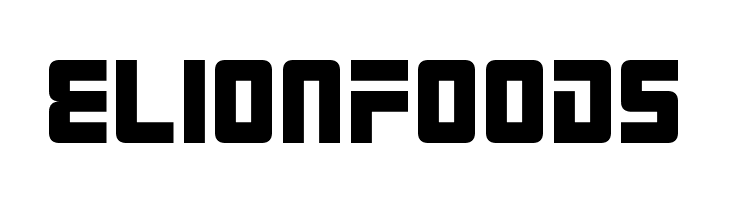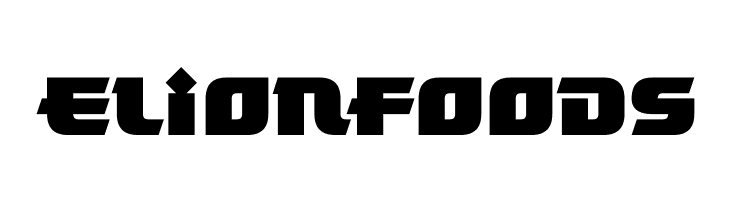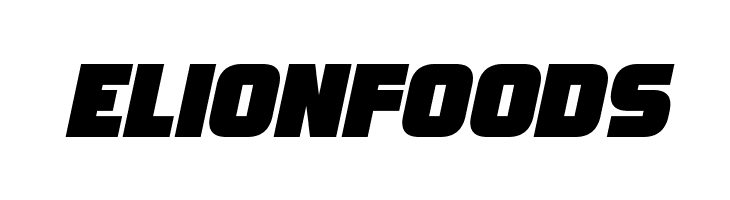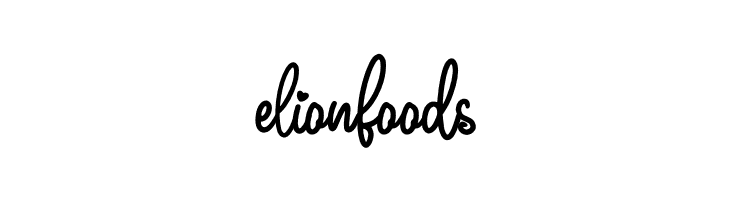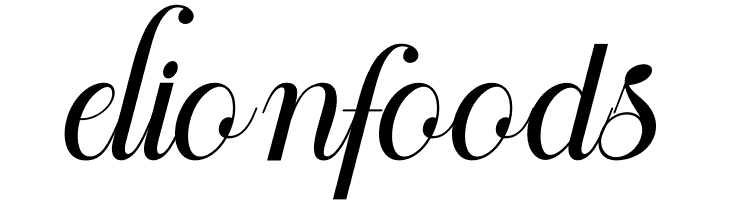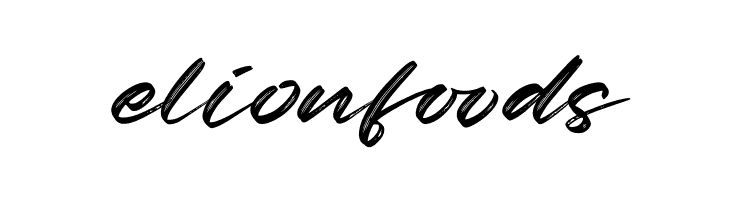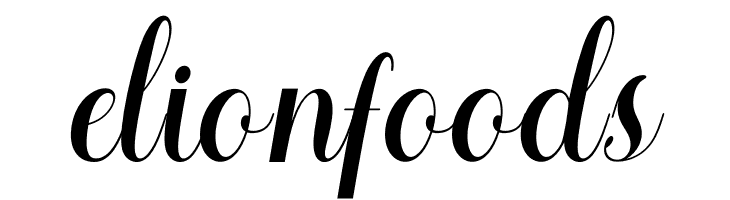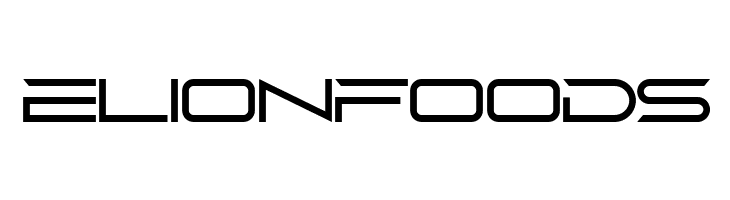
A bold, geometric font with a futuristic and modern style.
A bold, geometric font with a futuristic and angular design.
A bold, angular font with a futuristic and geometric style.
A bold, angular, and italicized font with a futuristic style.
A bold, playful font with exaggerated, uneven letterforms.
A bold, italicized font with a modern, dynamic style.
A bold, geometric font with a modern, futuristic style.
A bold, geometric font with sharp, angular shapes for a futuristic look.
A bold, angular font with high contrast and geometric design.
A bold, italicized font with a futuristic and dynamic style.
A bold, geometric font with thick strokes and a modern, impactful design.
A bold, italic font with a dynamic and modern style.
A bold, angular, and italic font with a futuristic and dynamic style.
A bold, italicized font with sharp angles and a futuristic design.
A bold, angular font with a modern, aggressive style.
A bold, italicized font with a futuristic and robotic design.
A bold, futuristic font with geometric and angular design elements.
A whimsical and elegant handwritten font with flowing, interconnected letterforms.
An elegant script font with fluid, sweeping strokes and graceful curves.
A bold, expressive handwritten font with dynamic cursive letterforms.
A bold, geometric font with an industrial, vintage feel.
A playful, whimsical script font with decorative swirls and a handwritten feel.
A bold, flowing script font with a playful, artistic style.
A flowing, elegant script font with a handwritten style and decorative swashes.
A bold, modern font with a geometric and slightly condensed style.
A sophisticated script font with elegant, flowing letterforms and high contrast strokes.
A bold, dynamic serif font with a classic yet modern appeal.
A bold, dynamic brush script font with energetic strokes and fluid motion.
An elegant script font with intricate swirls and high contrast strokes.
A bold serif font with thick strokes and sharp serifs, offering a modern twist on classic design.
A modern, geometric font with a futuristic and sleek design.